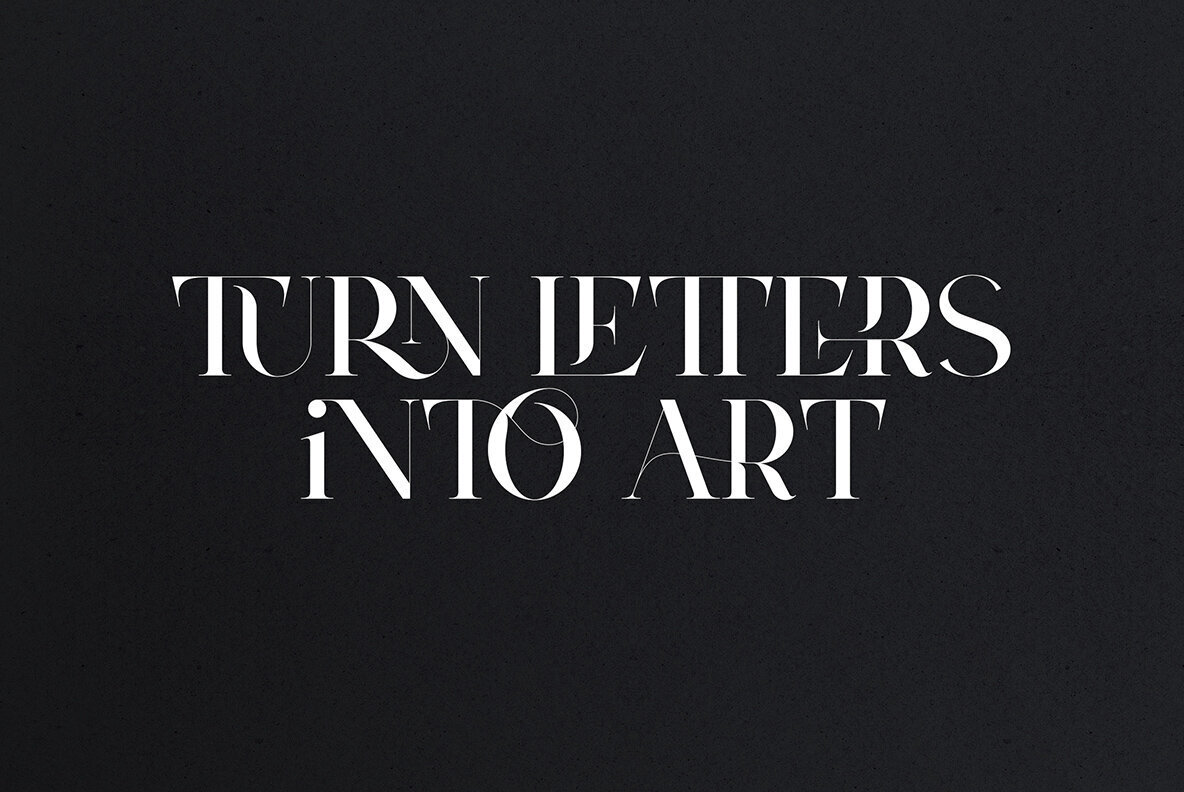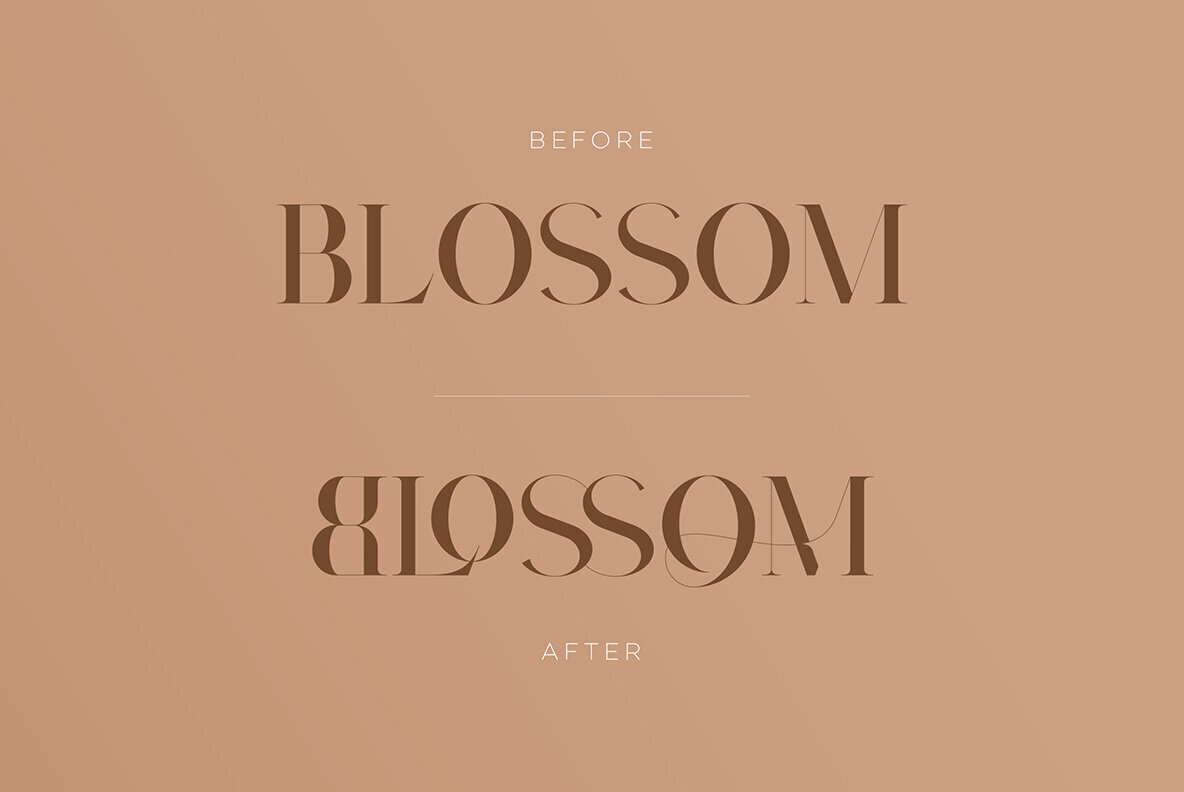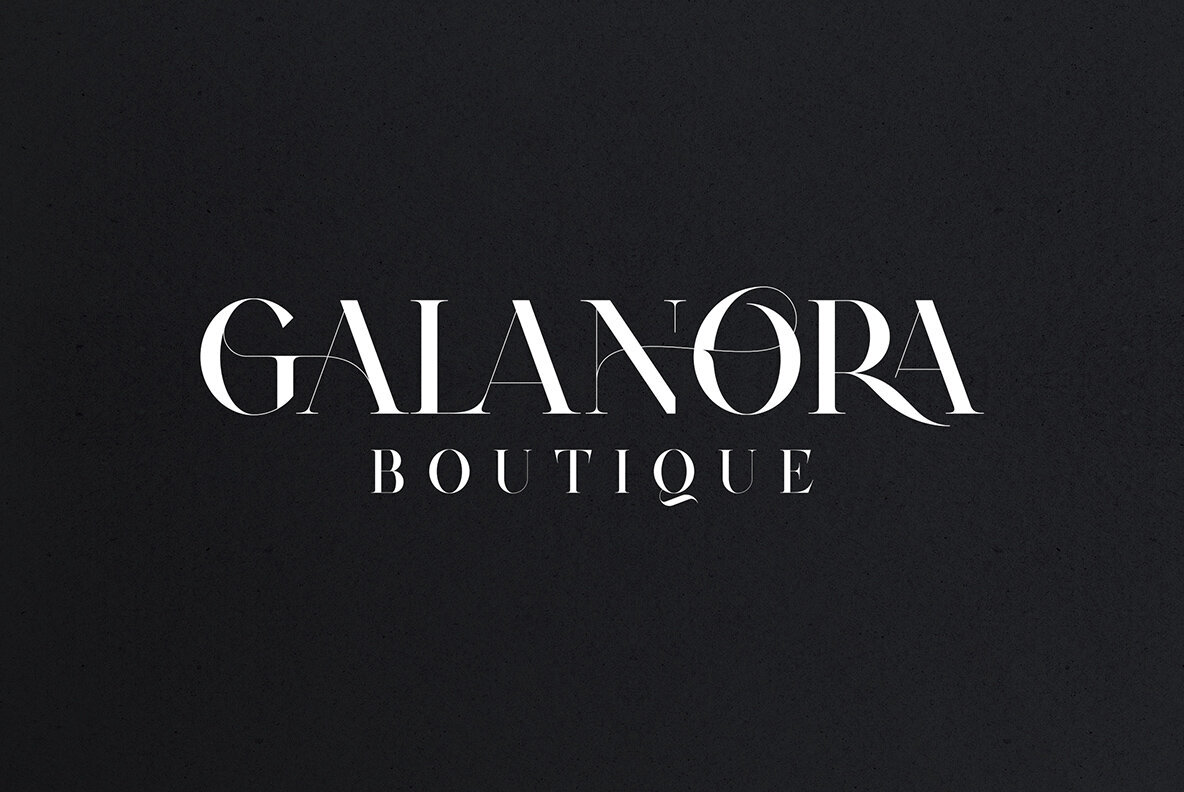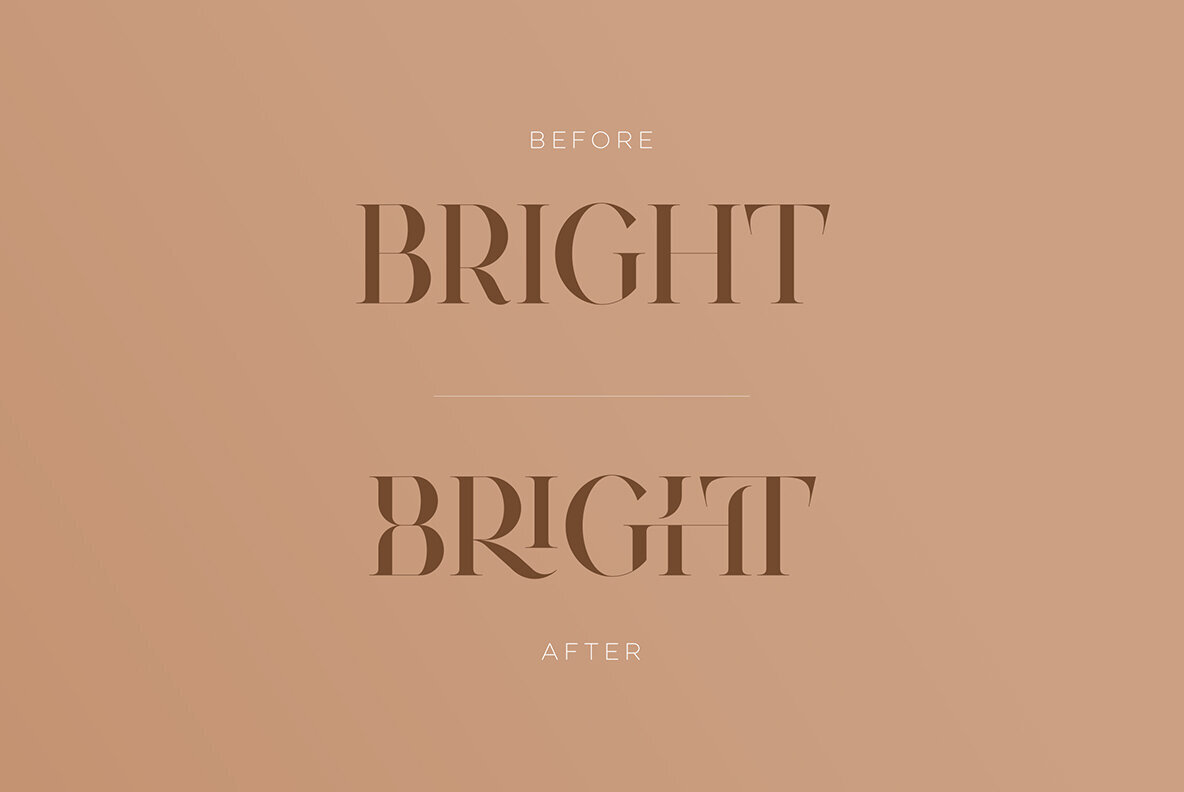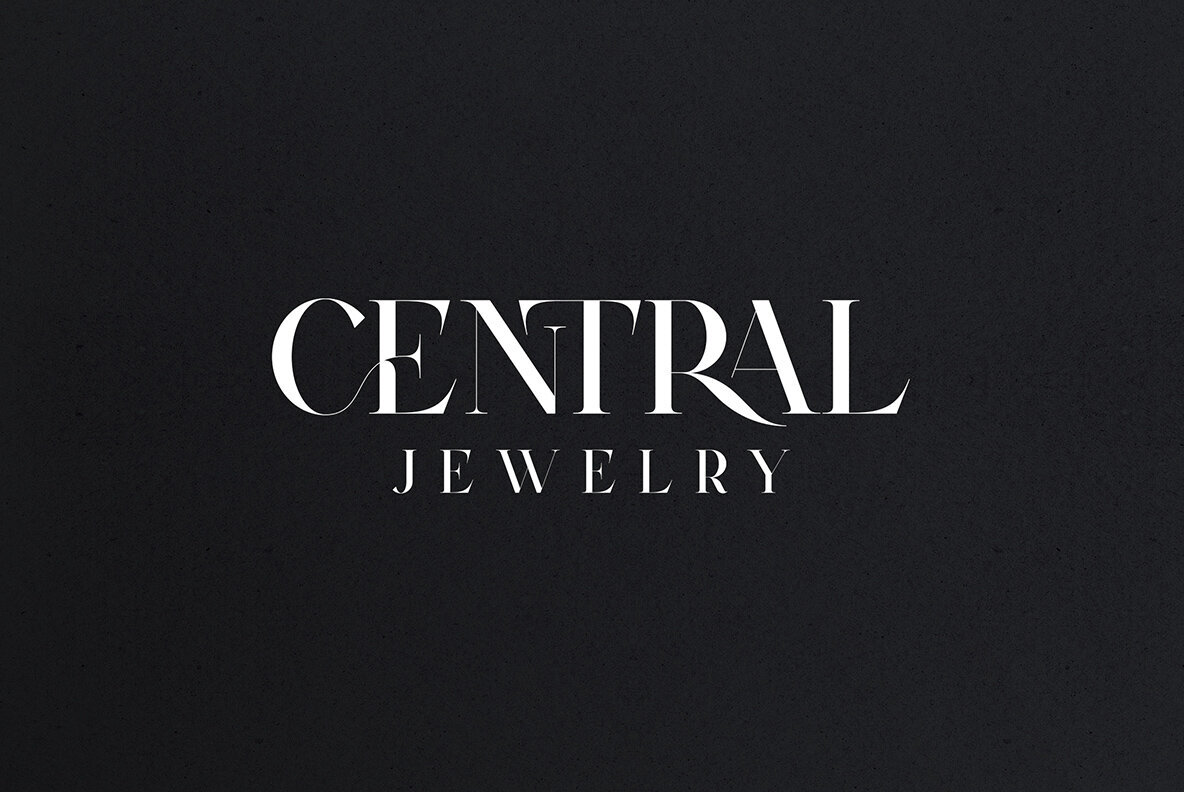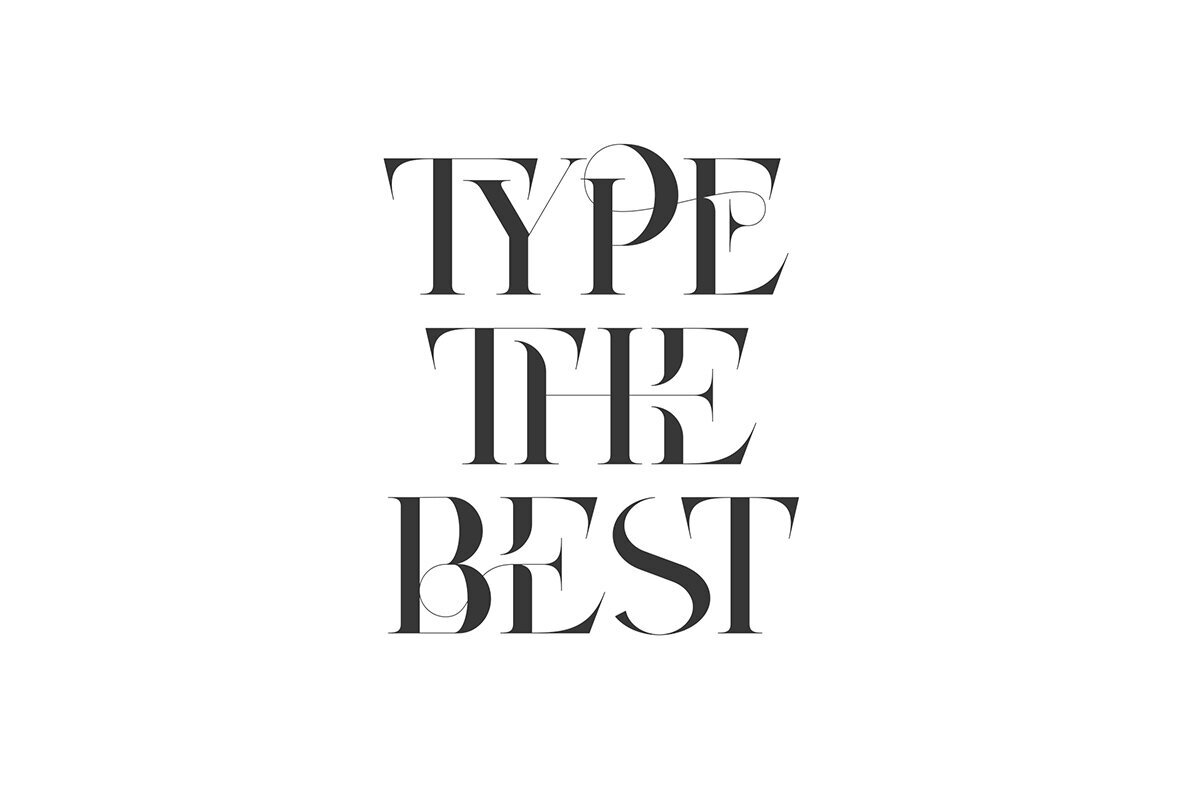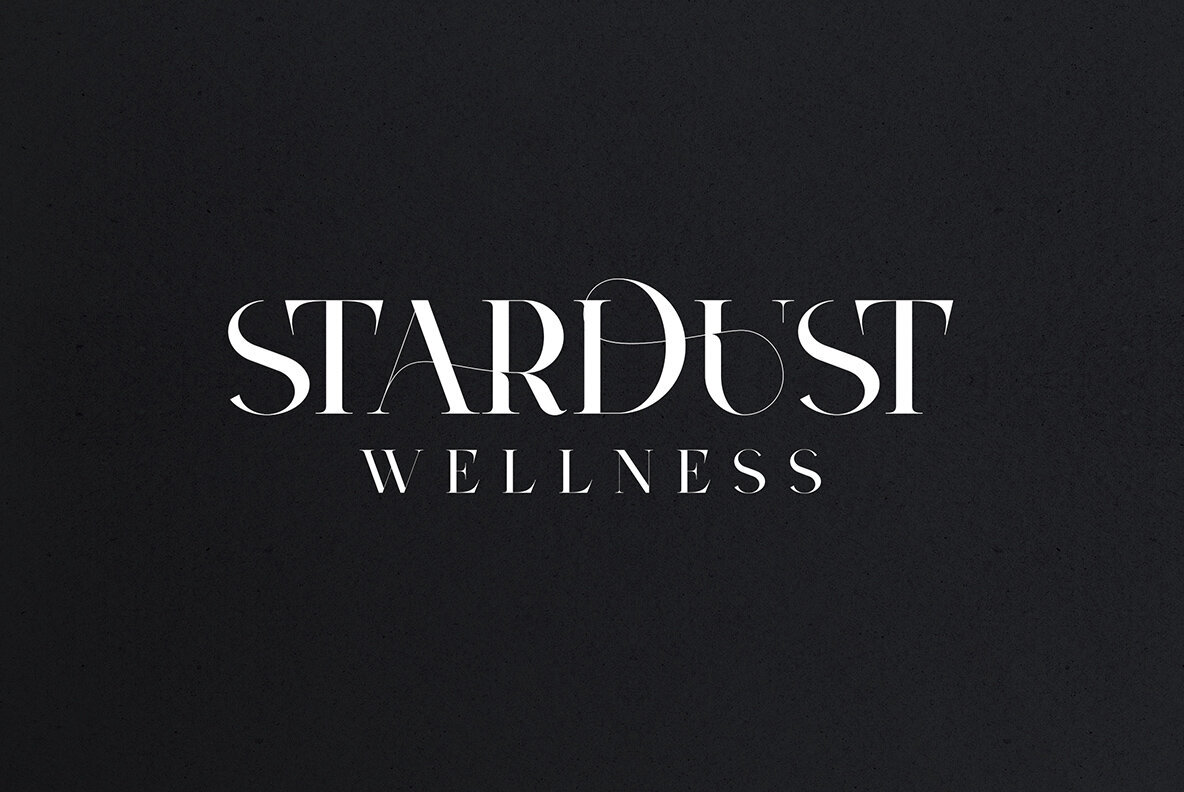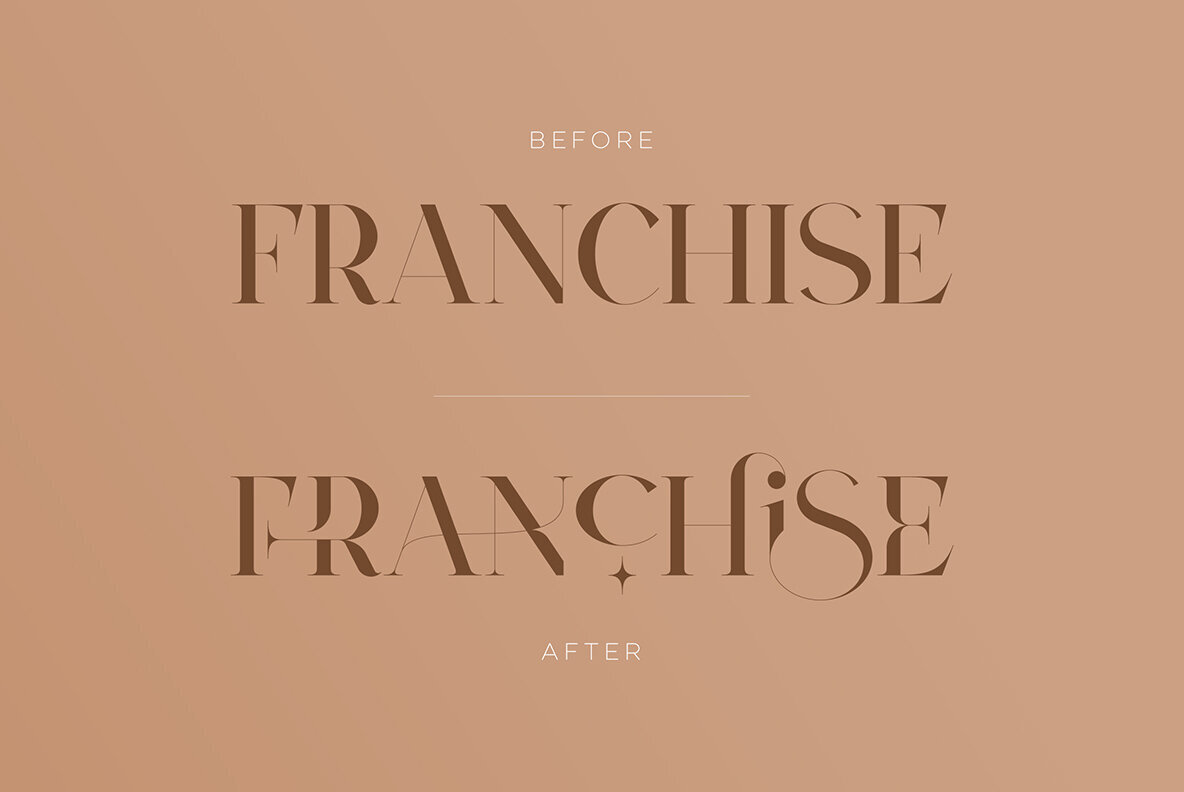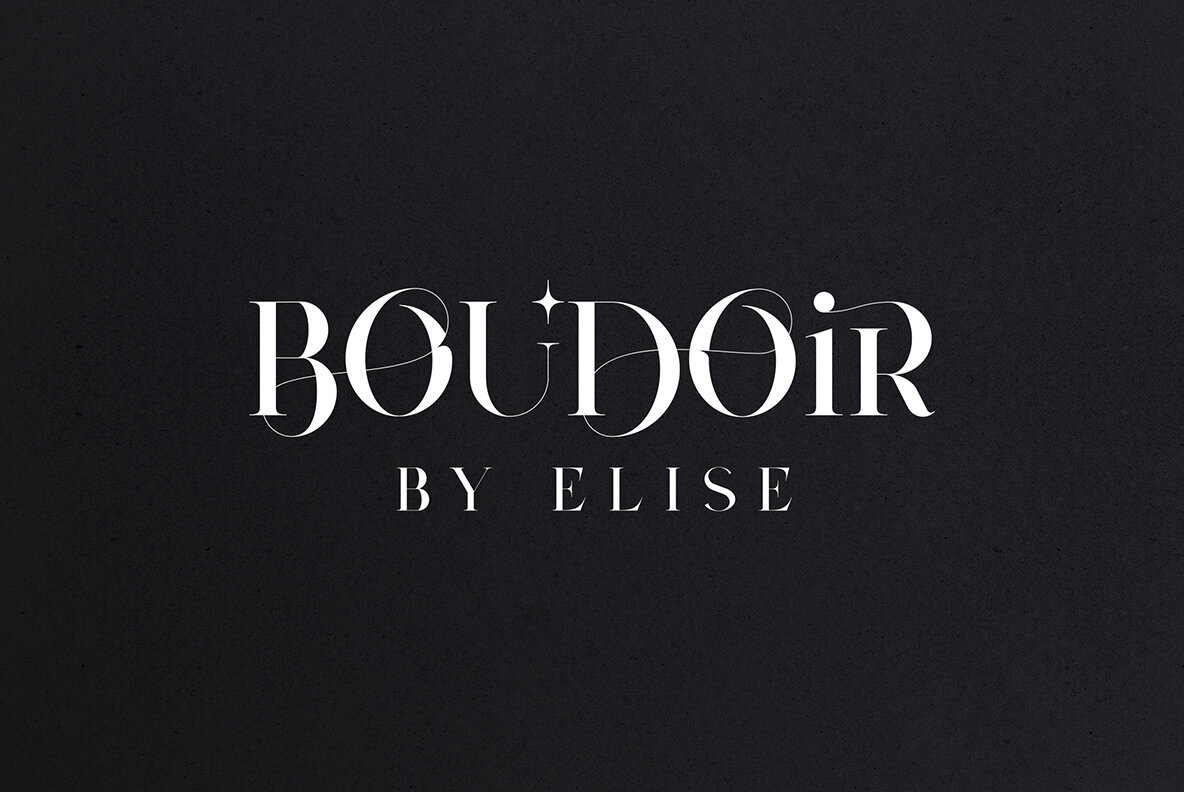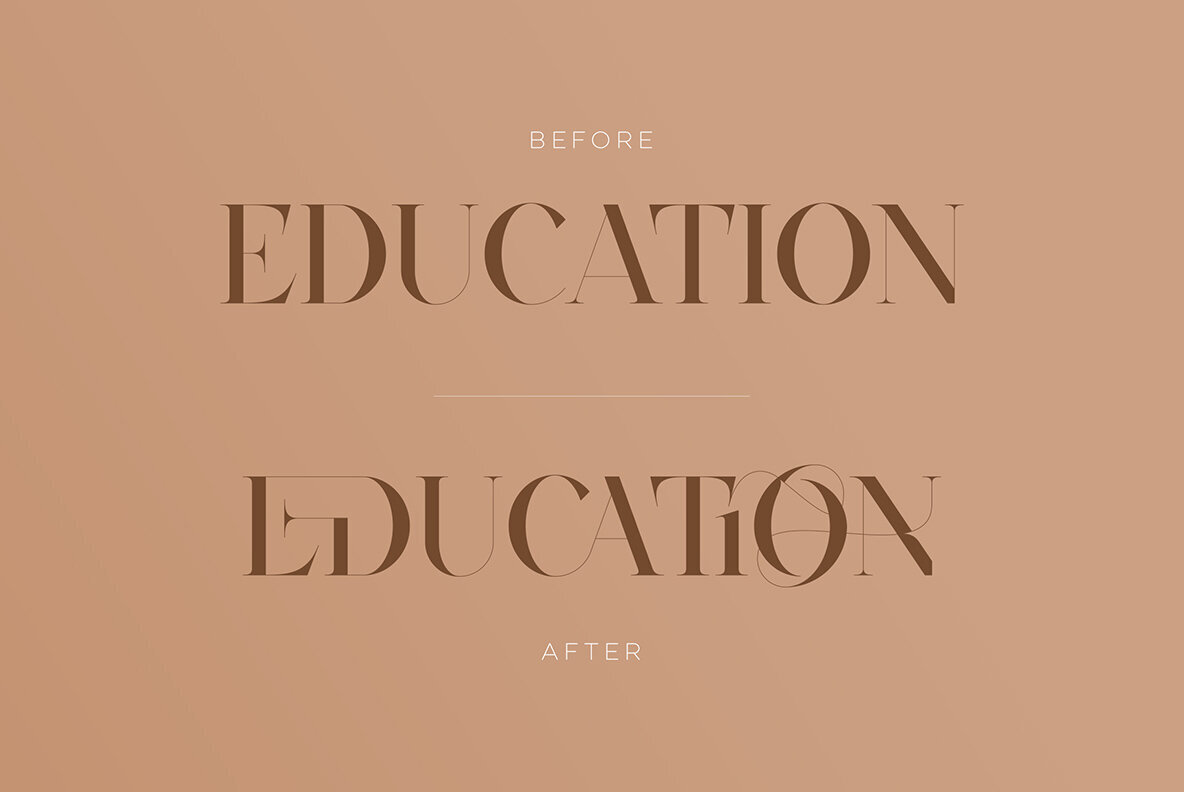
Introducing Type Prodigy, a timeless serif logo font that combines classic elegance with modern versatility. This font is a designer's dream, boasting over 310 crafted ligatures and alternate glyphs that add flair and sophistication to any project. With support for 87 languages, Type Prodigy is truly a global font that caters to diverse design needs. Type Prodigy is a font that exudes professionalism, making it perfect for creating logos, branding, editorial designs, and more. Its refined serifs and clean lines convey a sense of authority, while its generous ligatures and alternate glyphs allow for creative customization, making each design truly unique. Whether you're designing for a luxury brand, a boutique business, or a creative agency, Type Prodigy delivers exceptional results. Its extensive character set and language support make it ideal for international clients, enabling you to communicate effectively in multiple languages and markets. With Type Prodigy, you'll have access to a versatile font that combines classic beauty with modern functionality. Its exquisite design and extensive features make it a profitable choice for professional designers who demand the best. Unlock your creative potential with Type Prodigy, and elevate your designs to new heights of excellence. Language Support : Afrikaans, Albanian, Asu, Basque, Bemba, Bena, Breton, Chiga, Colognian, Cornish, Czech, Danish, Dutch, Embu, English, Estonian, Faroese, Filipino, Finnish, French, Friulian, Galician, Ganda, German, Gusi,i Hungarian, Indonesian, Irish, Italian, Jola-Fonyi, Kabuverdianu, Kalenjin, Kamba, Kikuyu, Kinyarwanda, Latvian, Lithuanian, Lower Sorbian, Luo, Luxembourgish, Luyia, Machame, Makhuwa-Meetto, Makonde, Malagasy, Maltese, Manx, Meru, Morisyen, North Ndebele, Norwegian, Bokmål, Norwegian, Nynorsk, Nyankole, Oromo, Polish, Portuguese, Quechua, Romanian, Romansh, Rombo, Rundi, Rwa, Samburu, Sango, Sangu, Scottish, Gaelic, Sena, Shambala, Shona, Slovak, Soga, Somali, Spanish, Swahili, Swedish, Swiss, German, Taita, Teso, Turkish, Upper, Sorbian, Uzbek (Latin), Volapük, Vunjo, Walser, Welsh, Western Frisian, Zulu Ligatures : AB,AC,AD,AE,AF,AG,AH,AI,AK,AM,AN,AO,AP,AR,AS,AT,AU,AV,AW,AY,AZ,BA,BE,BF,BG,BH,BM,BO,BU,CA,CB,CC,CE,CF,CG,CH,CI,CK,CL,CO,CQ,CR,CT,CU,DA,DE,DG,DI,DK,DM,DN,DO,DR,DU,EA,EB,ED,EE,EF,EG,EH,EI,EK,EL,EM,EN,EP,ER,ES,ET,EU,EV,EW,EX,EY,FA,FE,FF,FG,FI,FL,FO,FP,FR,FS,FT,FU,FY,GA,GE,GH,GL,GR,HA,HB,HD,HE,HF,HI,HK,HL,HO,HT,IB,IC,ID,IE,IF,IG,IK,IL,IM,IN,IO,IR,IS,IT,IU,KA,KC,KE,KF,KG,KI,KO,KP,KQ,KR,KS,LA,LC,LD,LE,LF,LI,LK,LL,LM,LN,LO,LP,LT,LU,MA,MB,ME,MF,ML,MM,MO,MP,MS,MU,NA,NB,NC,ND,NE,NF,NG,NH,NI,NK,NL,NM,NN,NO,NQ,NT,NU,OA,OB,OC,OD,OE,OF,OG,OH,OI,OK,OL,OM,ON,OO,OP,OR,OT,OU,OV,OW,OX,OY,PA,PC,PE,PF,PG,PM,PN,PO,QA,QE,QU,RA,RB,RC,RD,RE,RF,RG,RH,RI,RK,RL,RM,RN,RO,RP,RR,RS,RT,RU,RY,SA,SD,SG,SS,ST,SU,TC,TD,TE,TF,TH,TI,TK,TL,TM,TN,TO,TP,TR,TT,TU,TW,TY,UH,UK,UL,UM,UN,UO,VA,VE,WA,WD,WE,WF,WO,XA,XC,XE,XT,YE,YO,YT,ZE,MEN,WER,FRO,RON,ROM,THE,AND,ING,HER,HAT,HIS,THA,ERE,FOR,ENT,ION,TER,WAS,YOU,ITH,VER,ALL,THI,TIO,OUL,ULD,IGH,GHT,AVE,HAV,ICH,HIC,HIS,HIN,HEY,ATI,EVE,HING,WERE,FROM,THAT,THER,TION,HERE,OULD,IGHT,HAVE,HICH,THIS,THIN,THEY,ATIO,EVER,MENT How to access alternate glyphs? To access alternate glyphs in Adobe InDesign or Illustrator, choose Window Type & Tables Glyphs In Photoshop, choose Window Glyphs. In the panel that opens, click the Show menu and choose Alternates for Selection. Double-click an alternate's thumbnail to swap them out. Mock ups and backgrounds used are not included! Thank you! Enjoy!